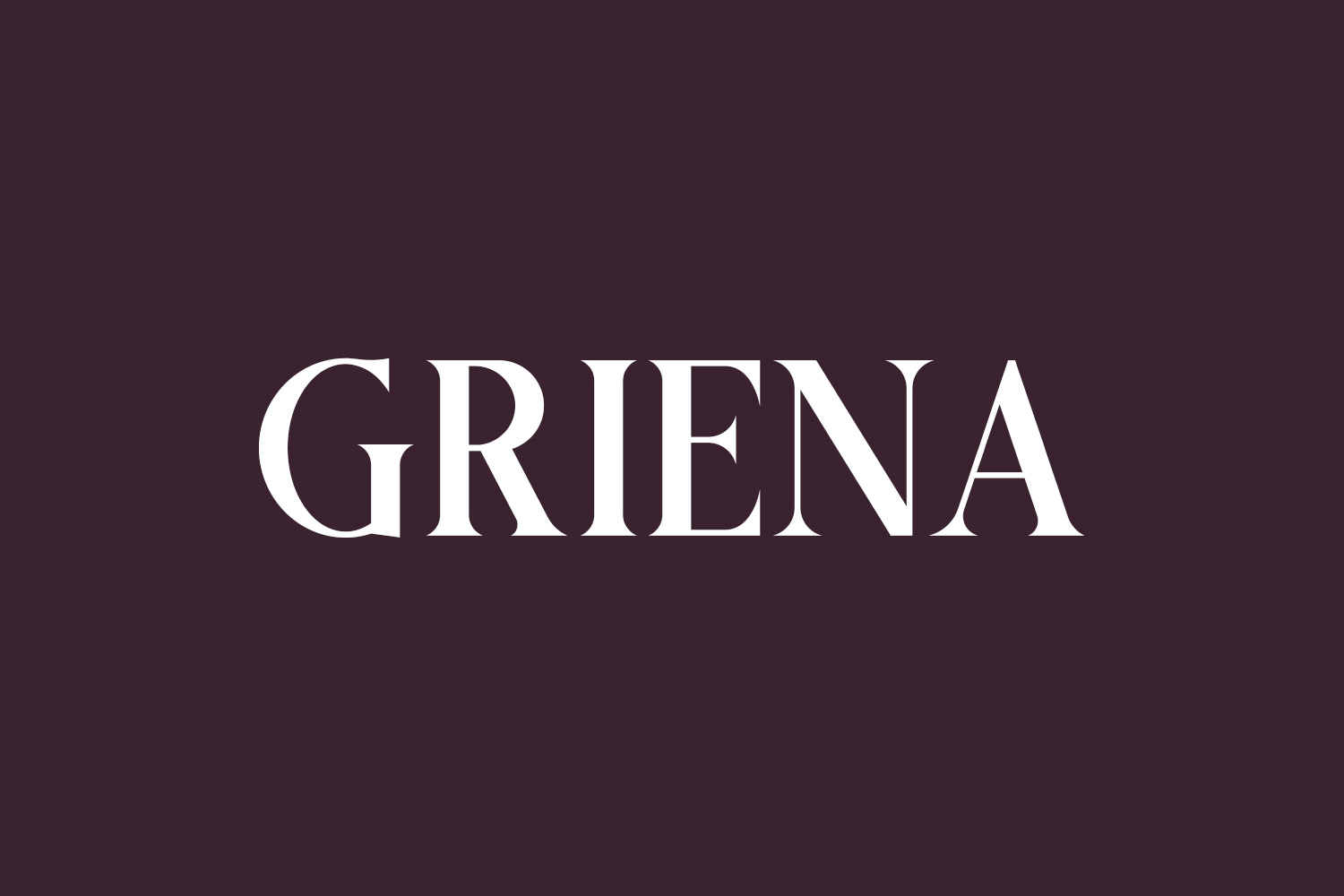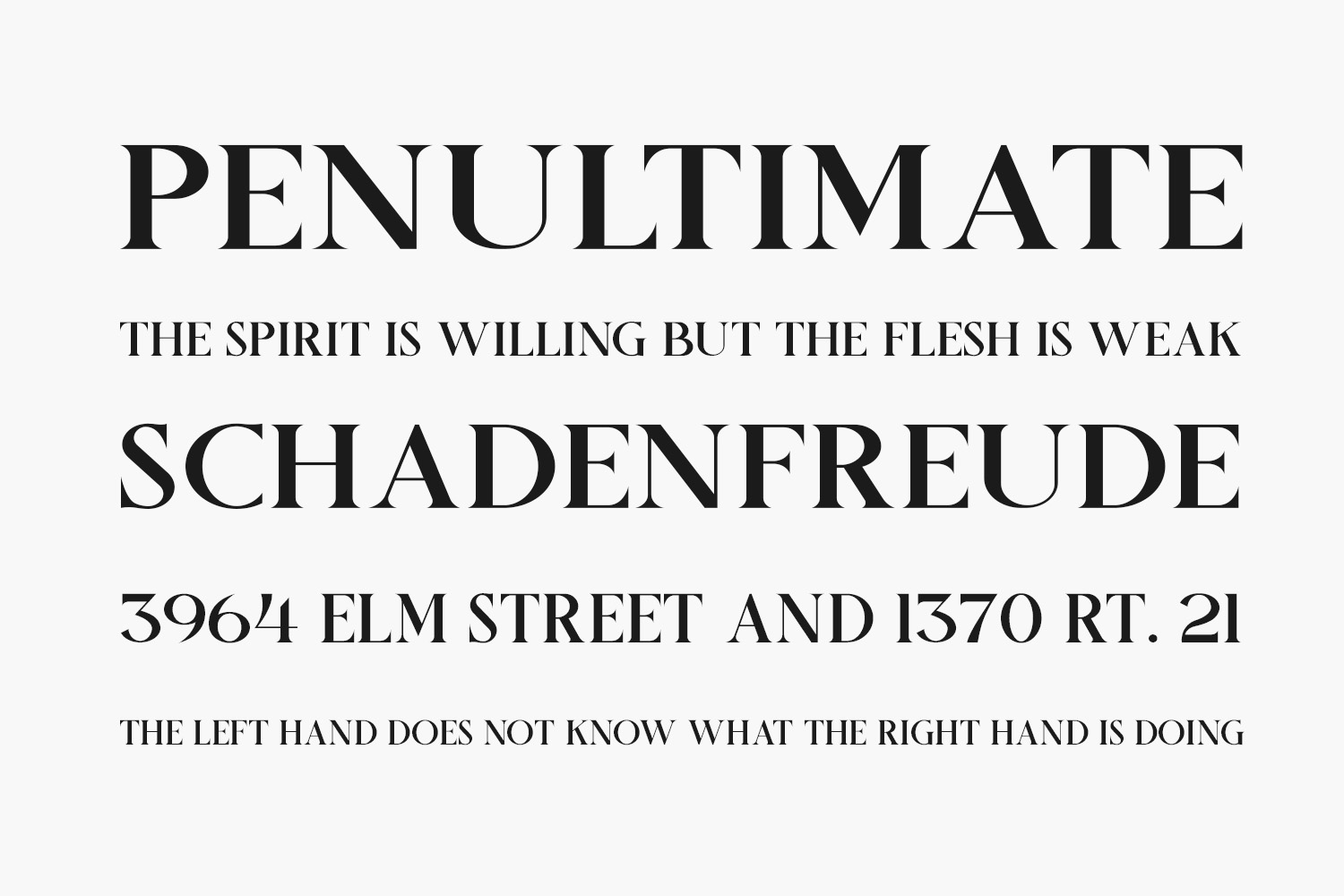
Introducing Griena Free Font – a sophisticated serif font showcasing a distinctive and contemporary flair. This font is ideal for creating refined and opulent logos, captivating book or movie titles, stylish fashion brand identities, captivating magazine layouts, chic clothing designs, impactful quotes, and beyond. Elevate your projects with Griena’s unique aesthetic and modern appeal. Griena Free Font is free for personal use only. Please purchase the full version for commercial use.
Designed by Maryamtype Studio